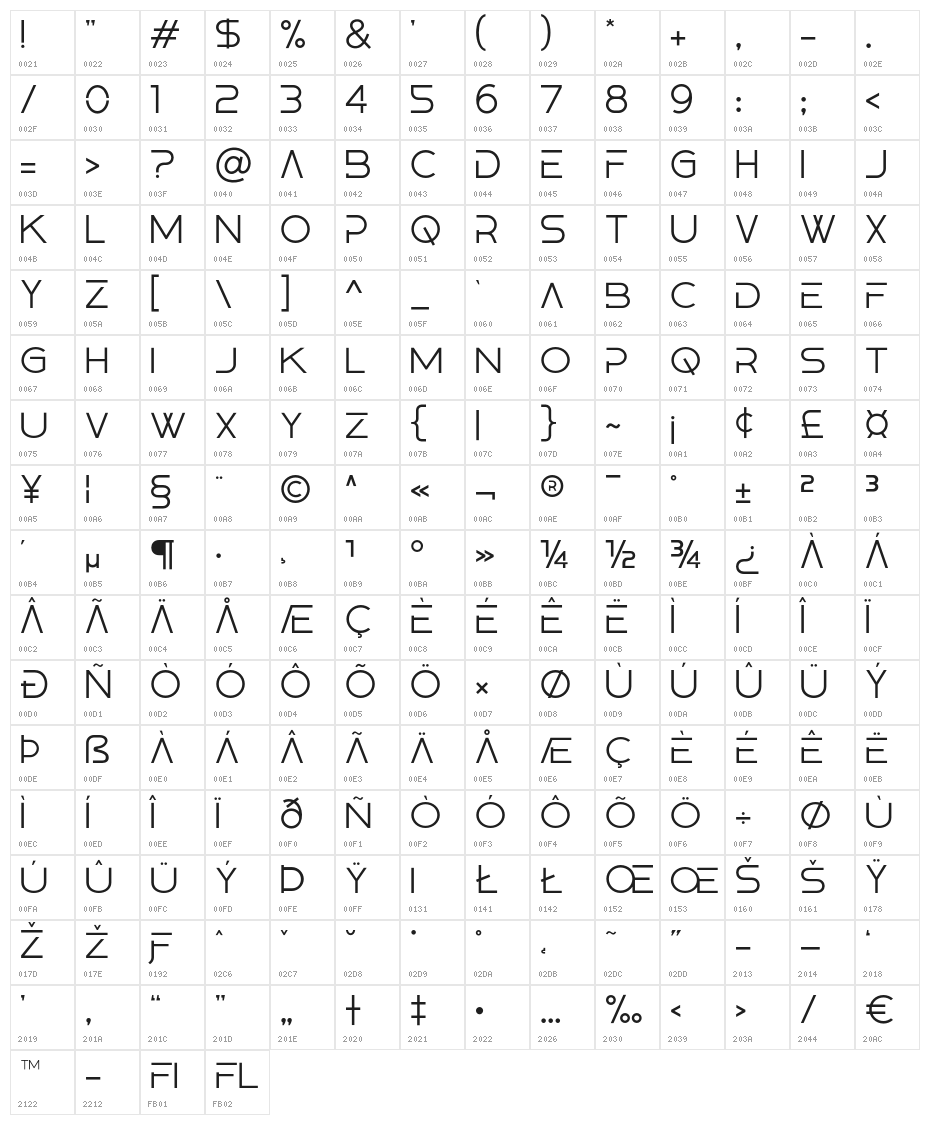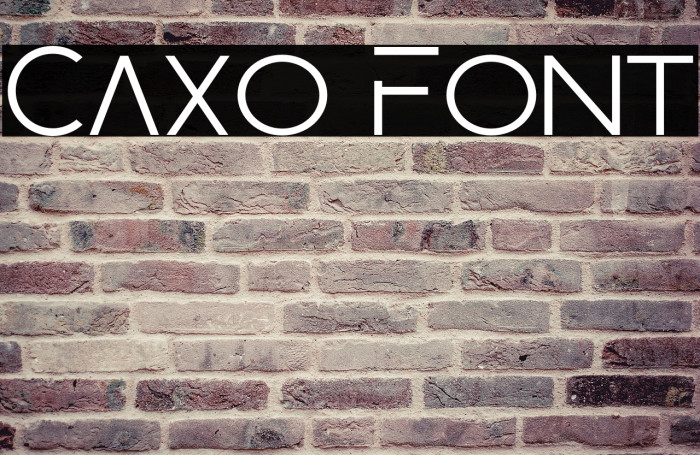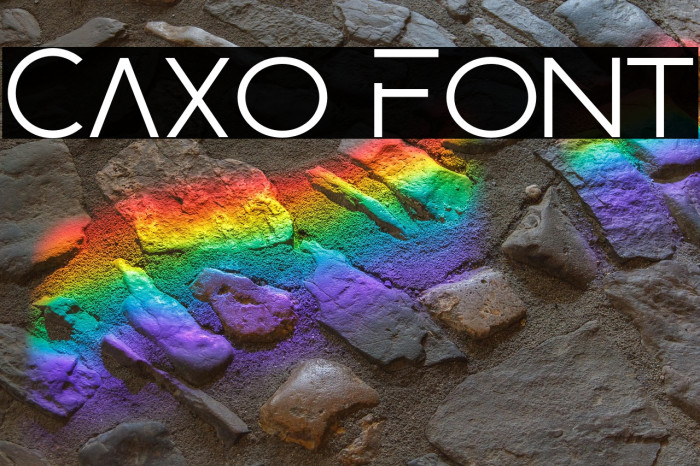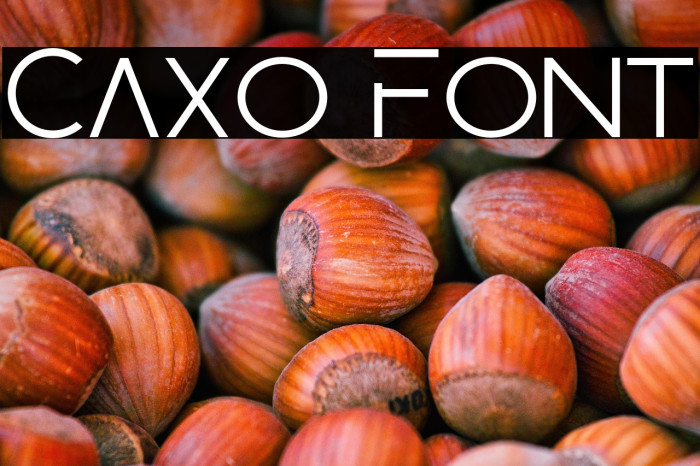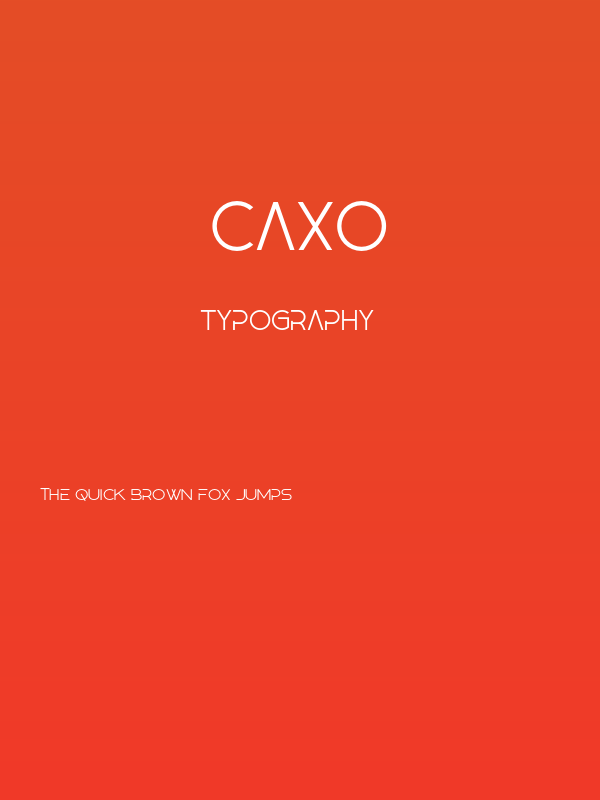
Caxo Font
Caxo Description
This font features a modern and geometric design with clean lines and a minimalist aesthetic. The characters are constructed with a consistent stroke width, giving it a uniform appearance. The uppercase letters are distinct with angular edges, while the lowercase letters maintain a similar geometric style. The numerals are clear and legible, matching the overall design. Special characters are included, maintaining the same stylistic approach. This font is ideal for projects that require a contemporary and sleek look.